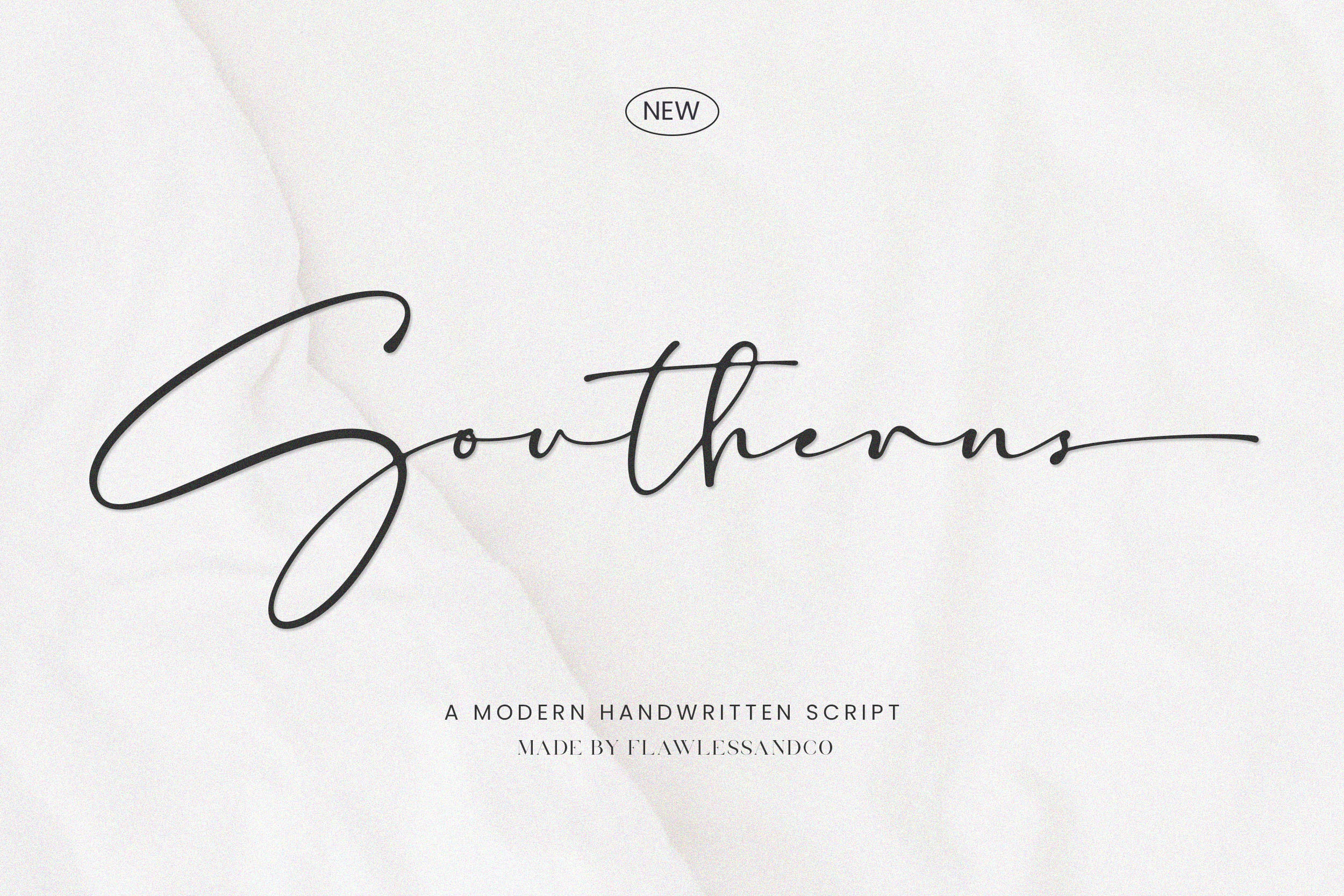
Southerns - Handwritten Script Font
Introducing "Southerns" - A Modern Handwritten Script Font. Unveil the beauty of modernity and the warmth of handcrafted charm with "Southerns," a contemporary handwritten script font that brings a touch of casual elegance to your designs. With its flowing lines and stylish character, "Southerns" is designed to add a sense of personal touch and modern style to your projects.